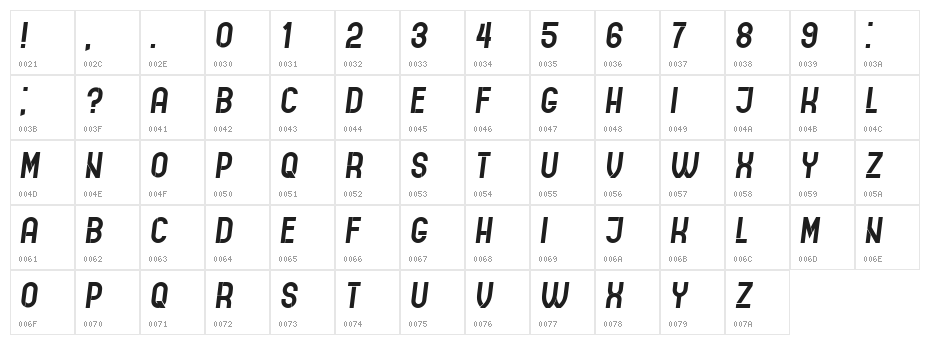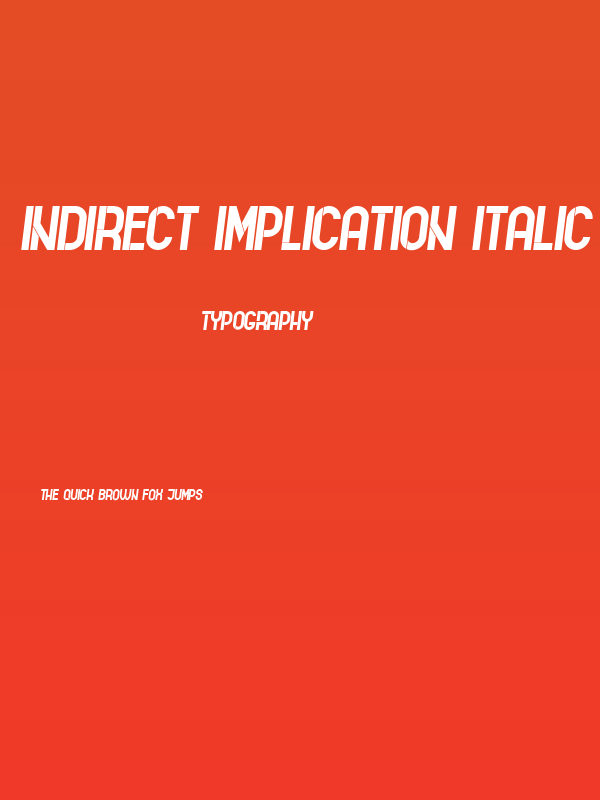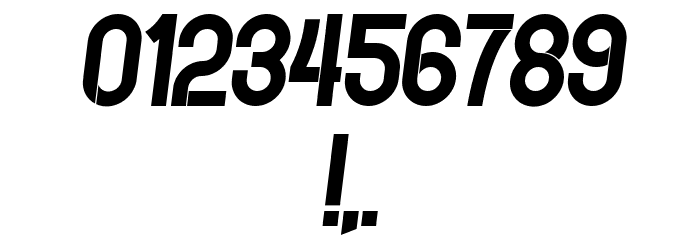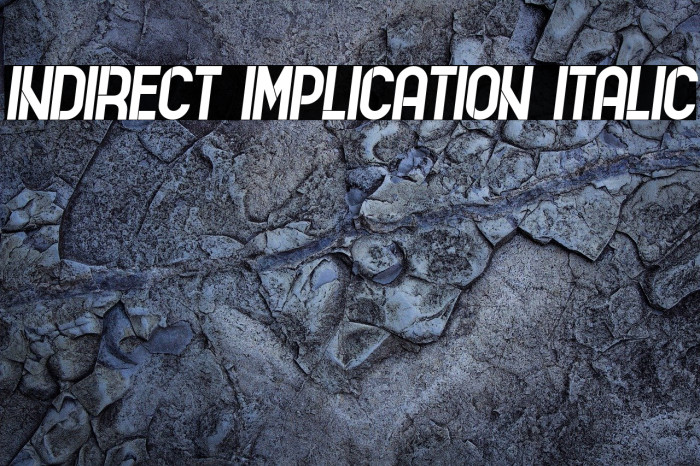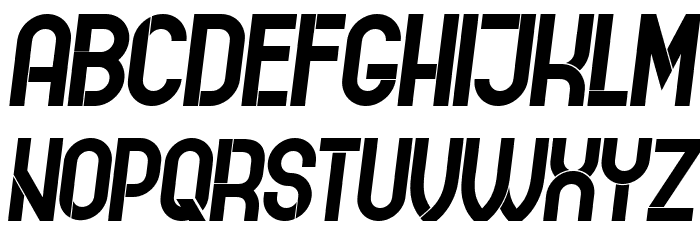
Indirect Implication Italic Font
Indirect Implication Italic Description
This font exhibits a modern, dynamic style with a distinct italic slant, giving it a sense of motion and energy. The characters are bold and robust, featuring a geometric design with sharp angles and clean lines. The uppercase and lowercase letters maintain a consistent style, with the lowercase being slightly more compact. Numbers are clear and legible, matching the boldness of the letters. The special characters are designed to integrate seamlessly with the rest of the font, maintaining the same angular and bold characteristics. Overall, the font's strong presence and unique style make it suitable for impactful design projects.